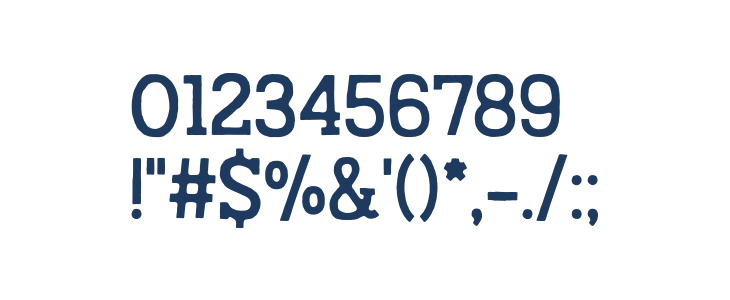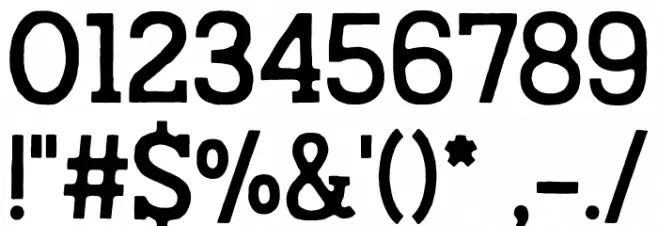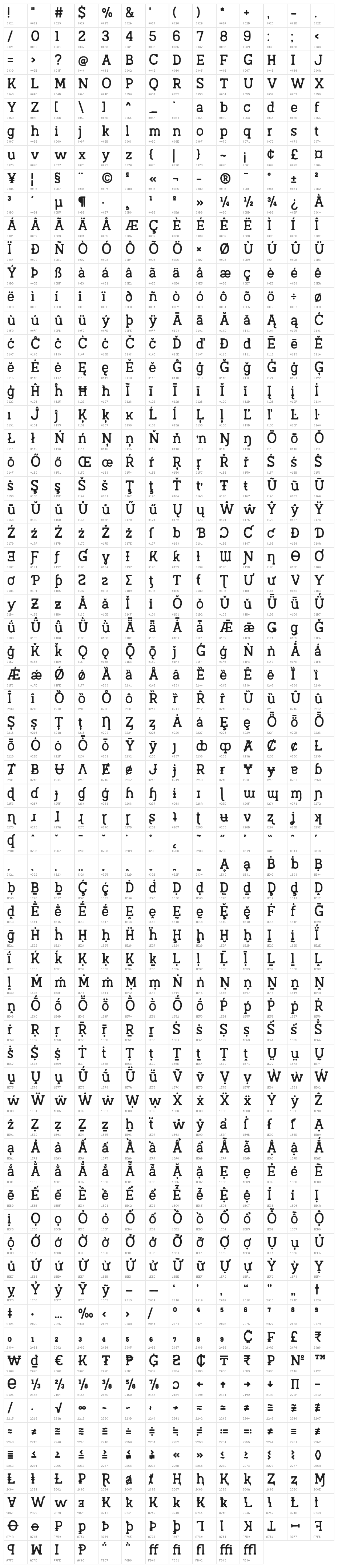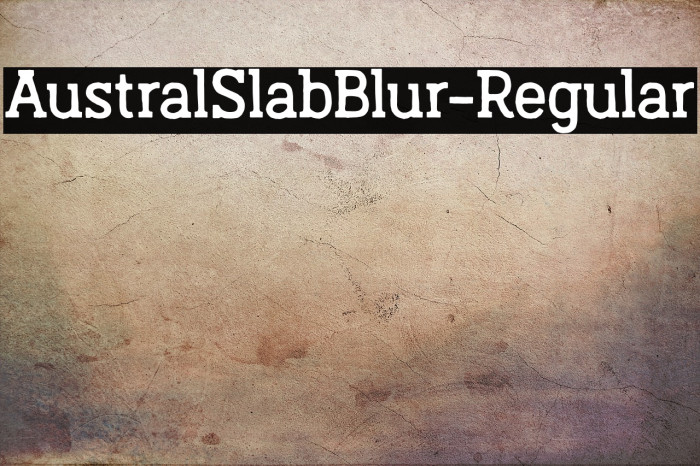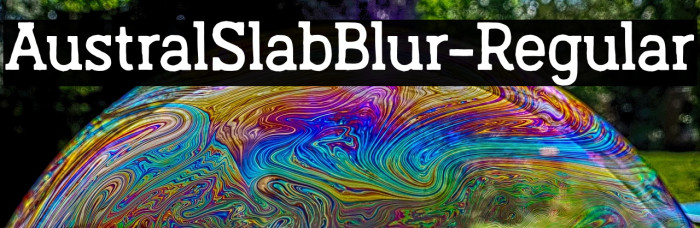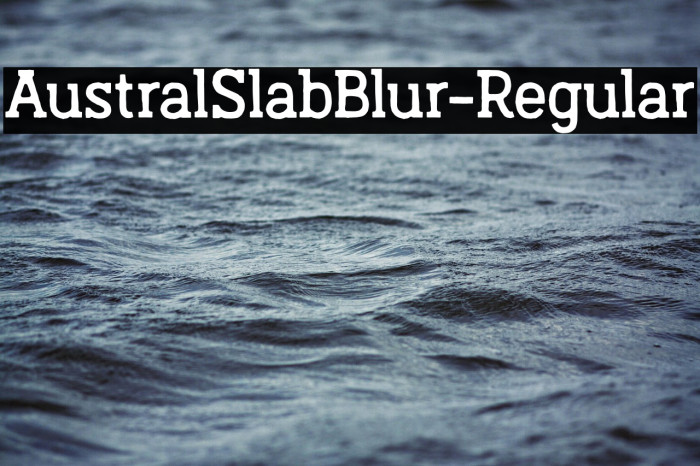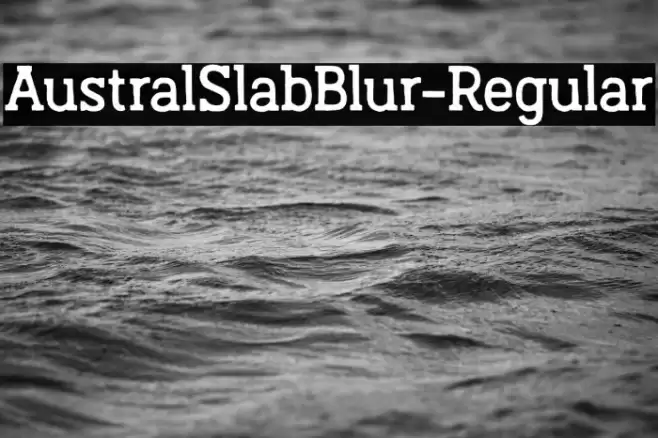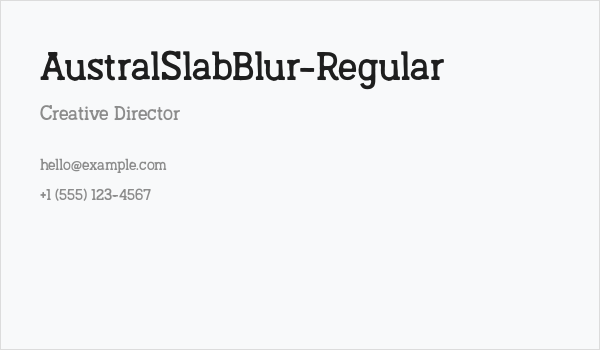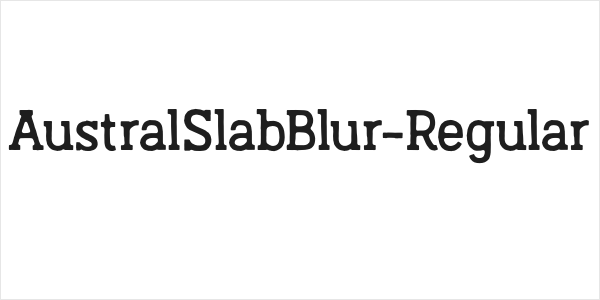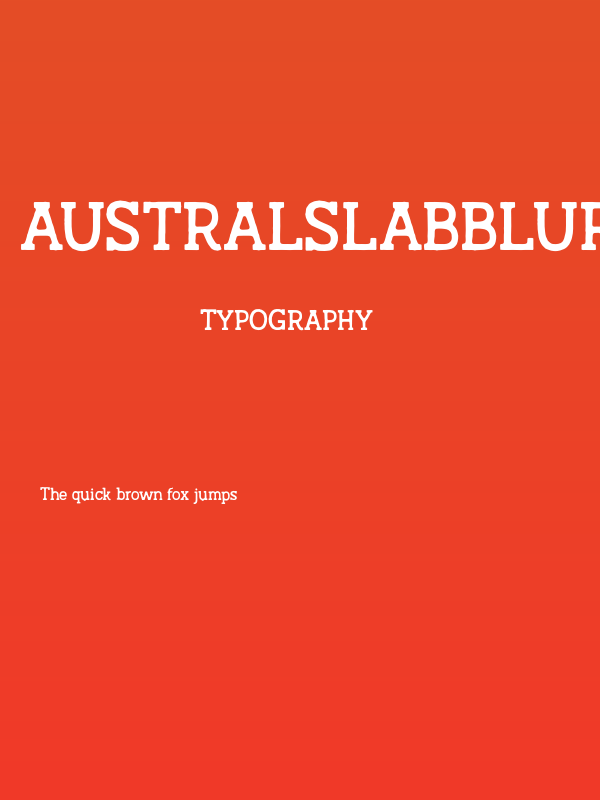
AustralSlabBlur-Regular Font
AustralSlabBlur-Regular Description
This font features a bold and distinctive slab serif style, characterized by thick, block-like serifs that give it a strong and sturdy appearance. The letters are well-defined with a slightly rounded edge, adding a touch of softness to the otherwise robust design. The uppercase and lowercase letters maintain a consistent weight, providing a harmonious look across the alphabet. Numbers and special characters are equally bold, ensuring readability and impact. This font's design is both modern and timeless, making it versatile for various applications.